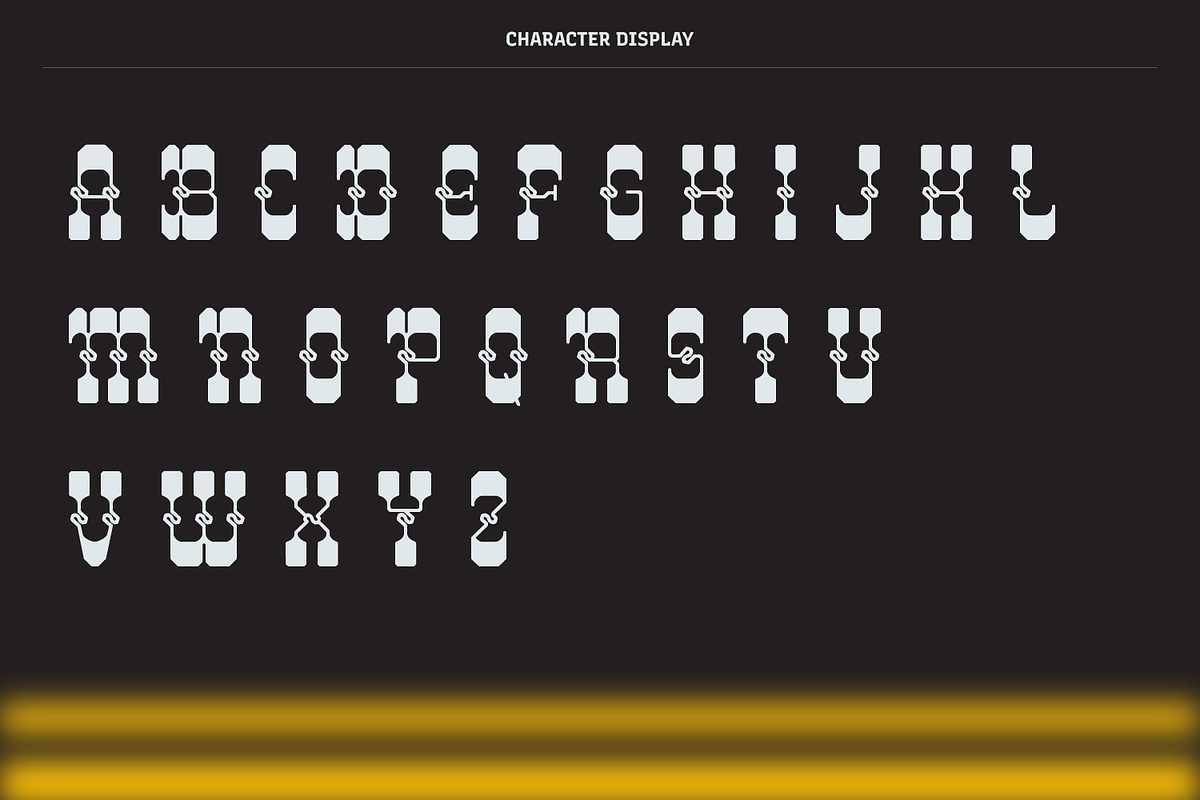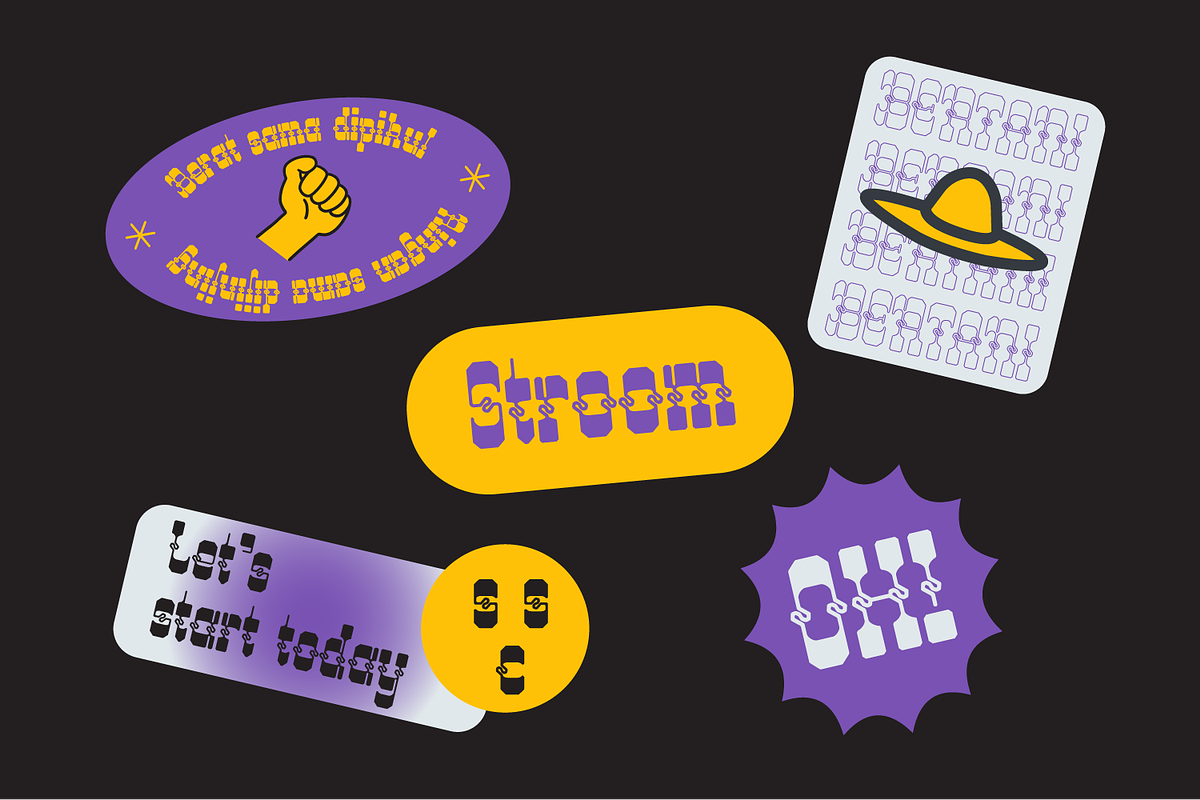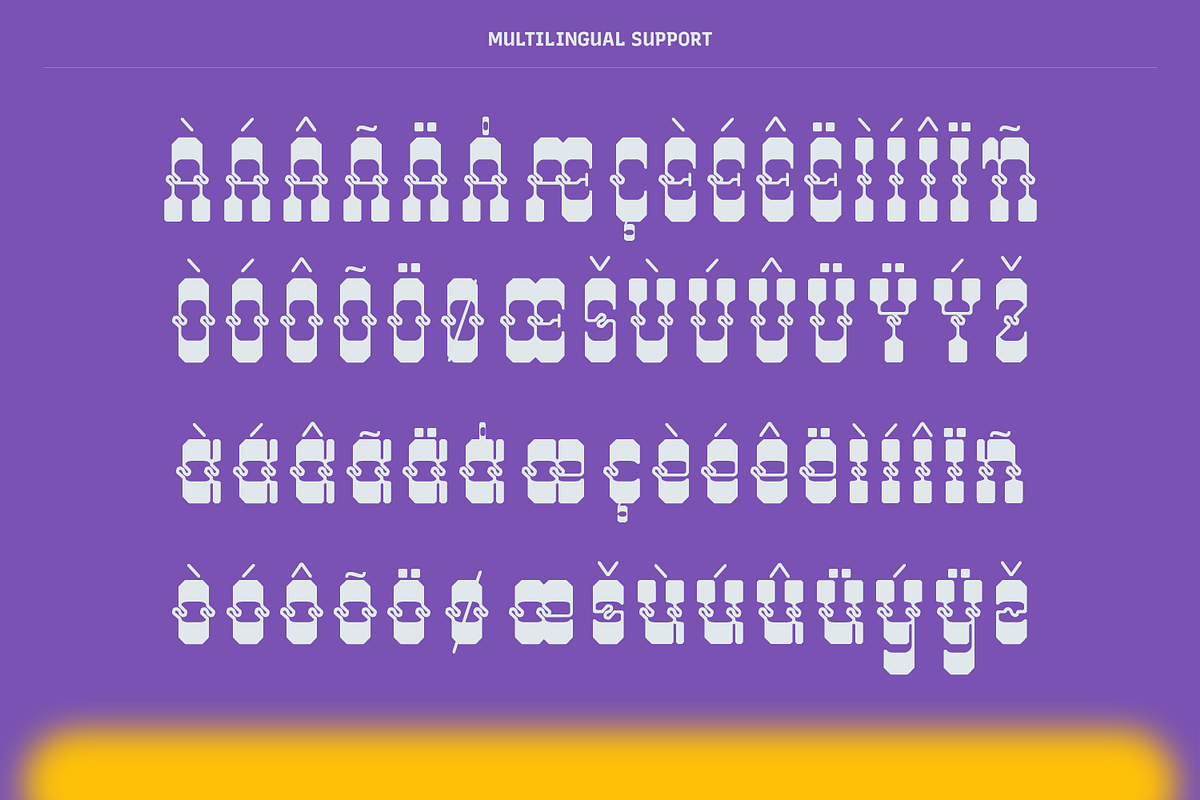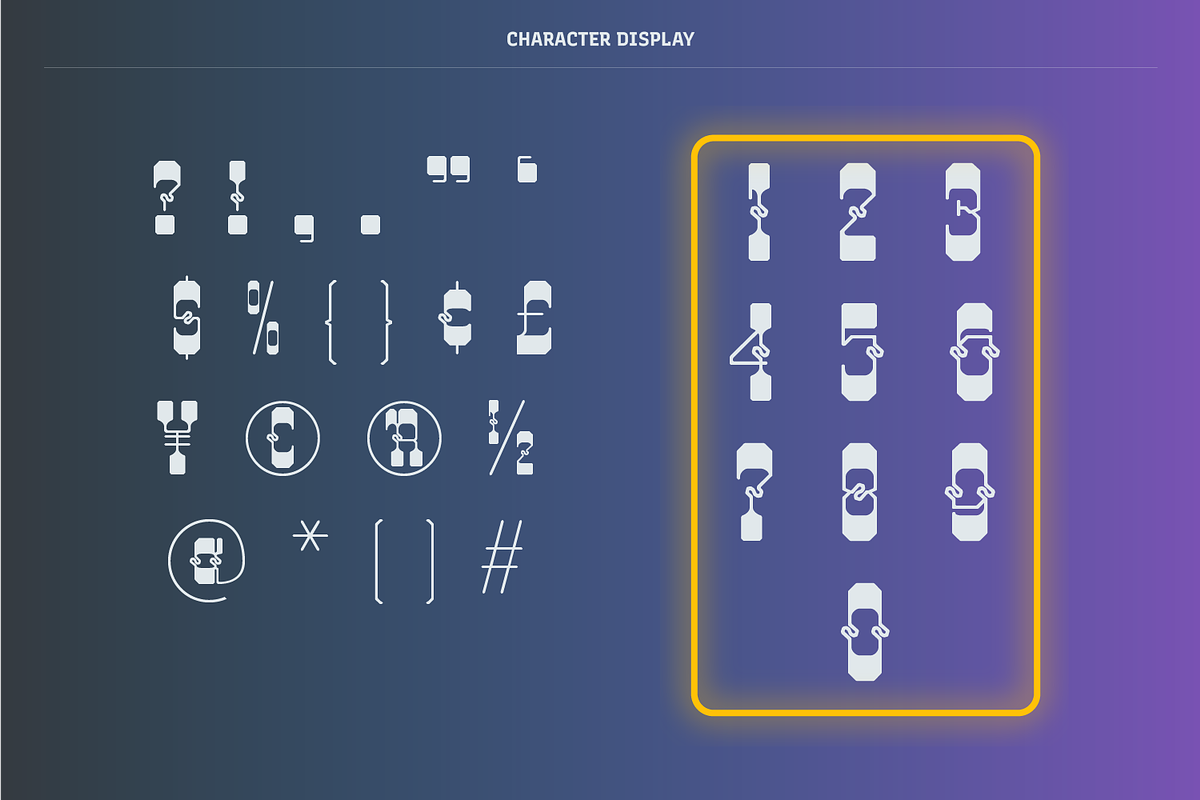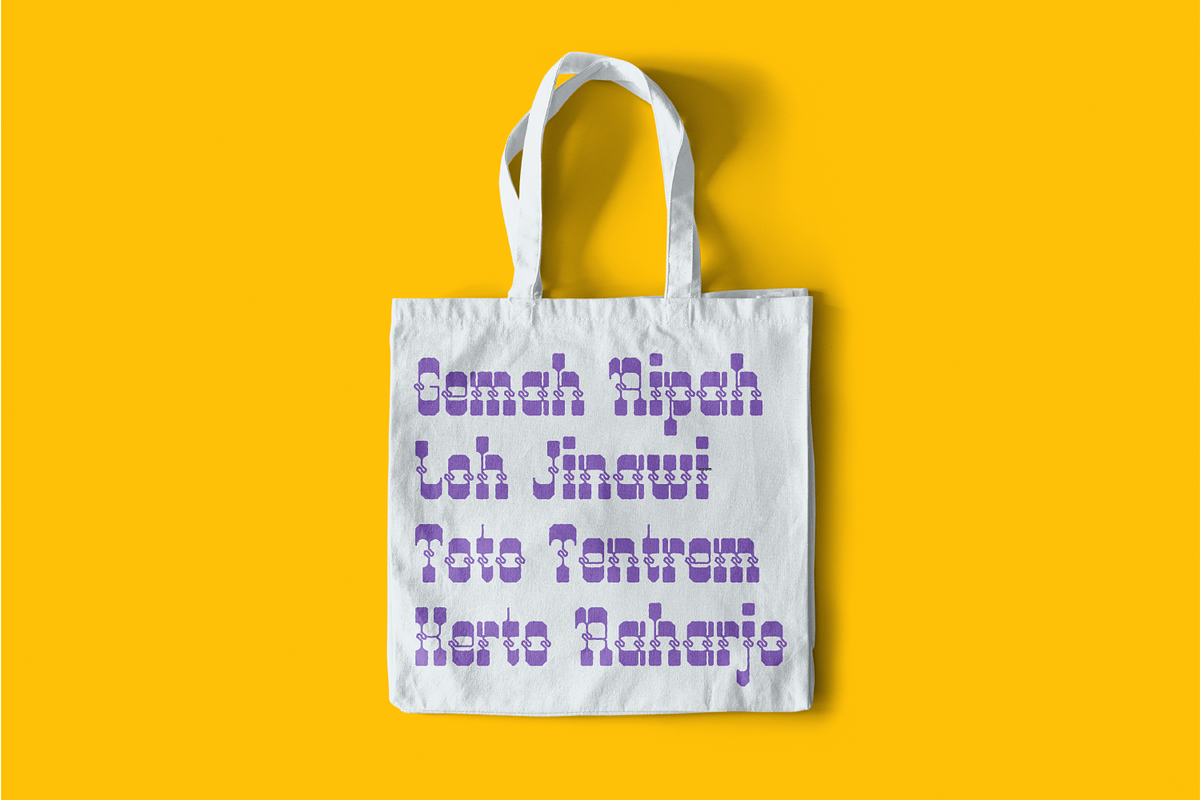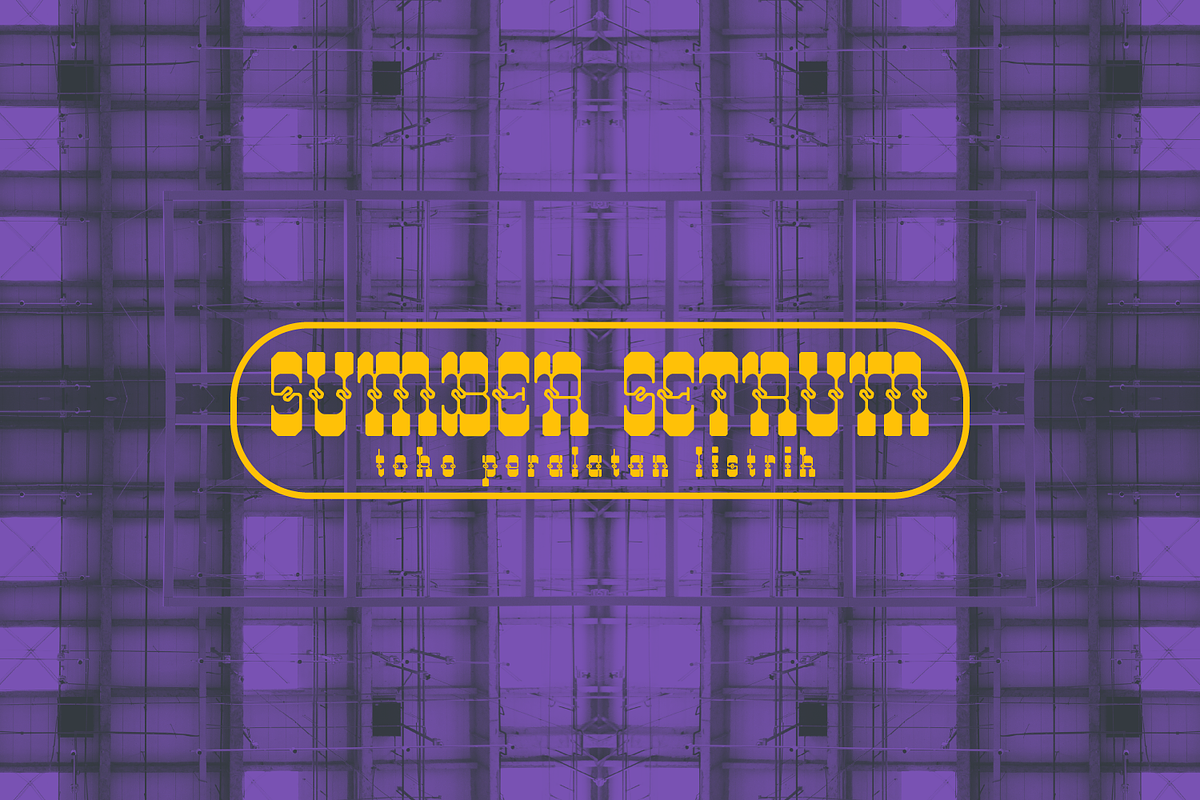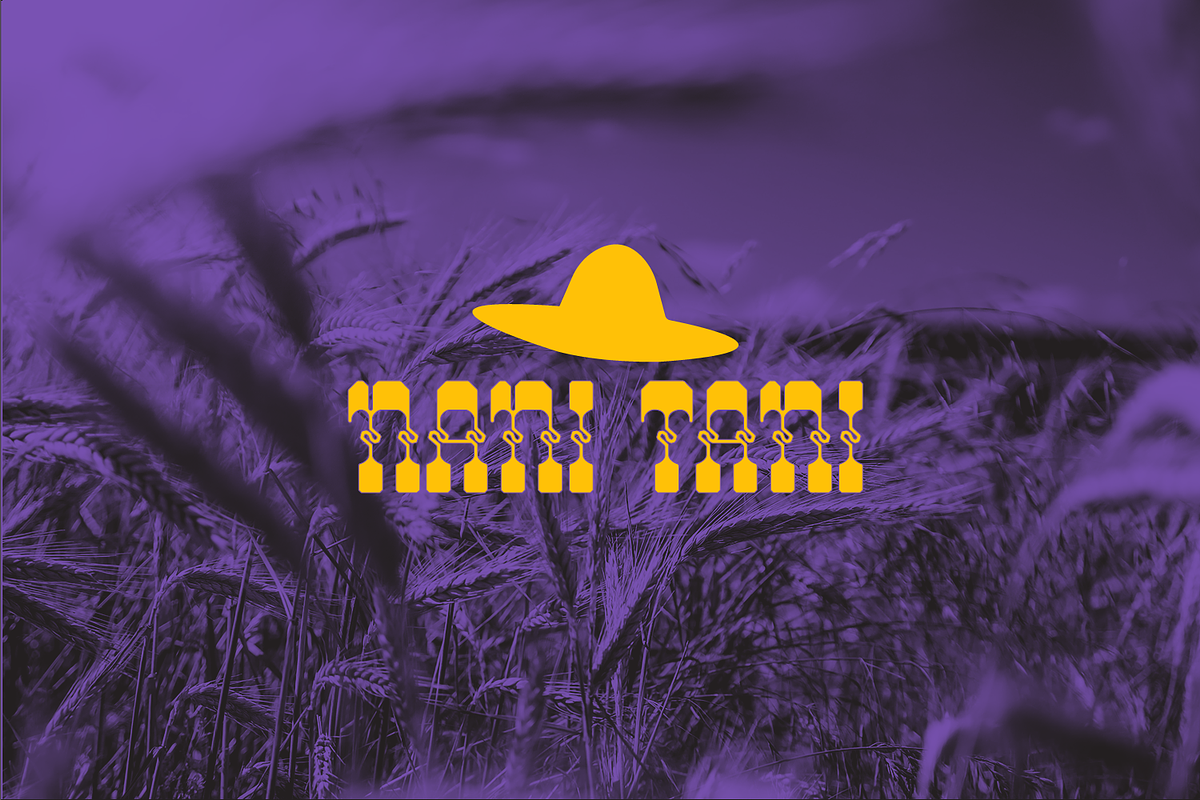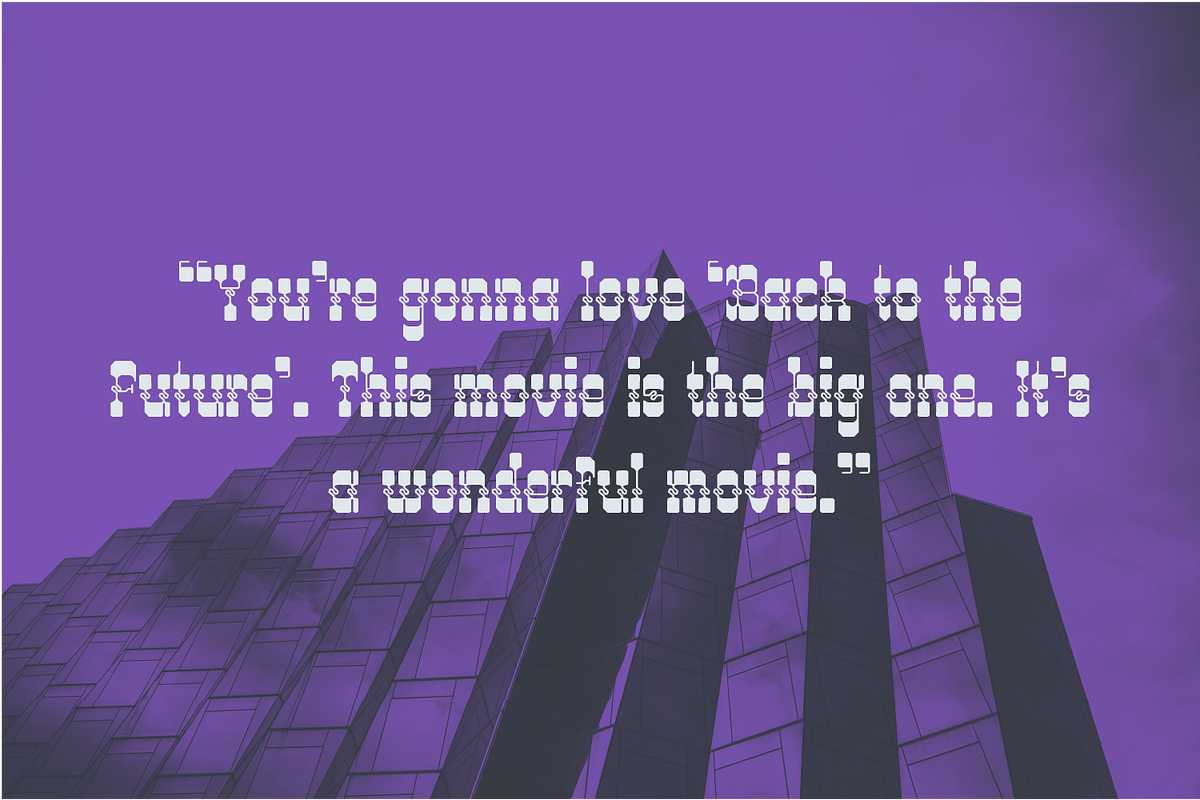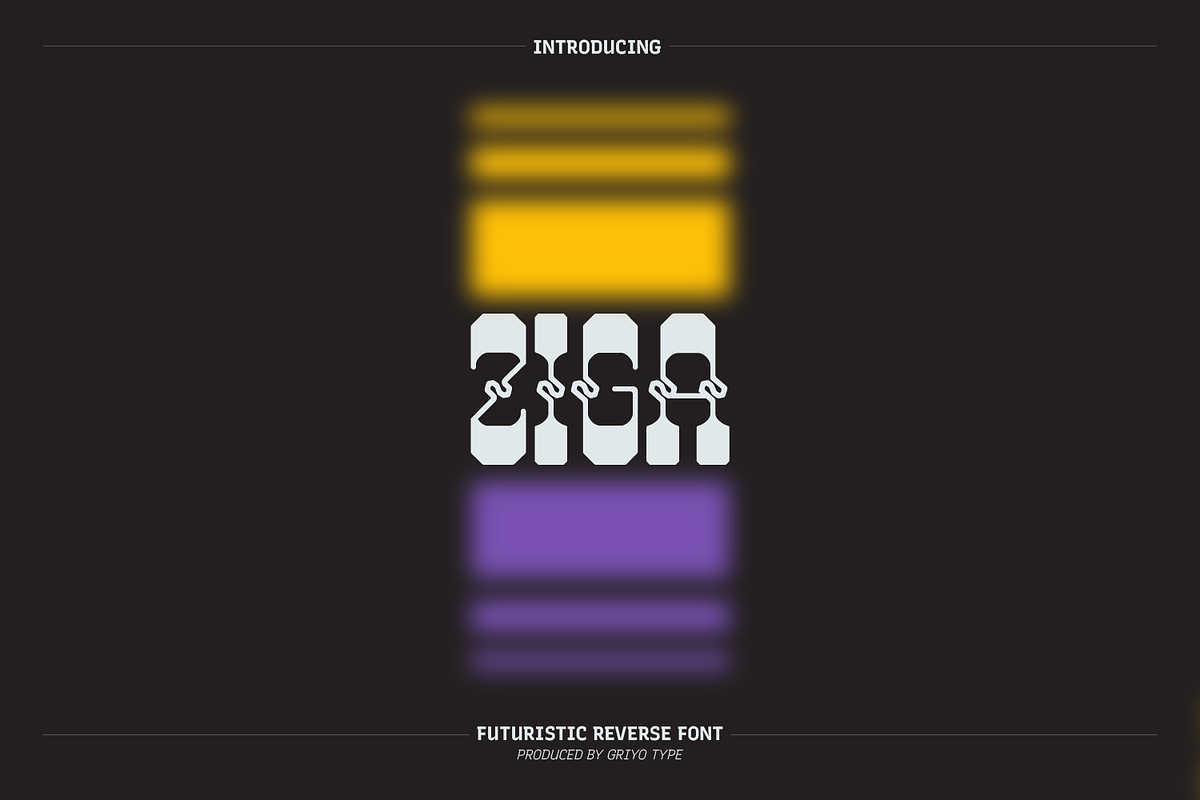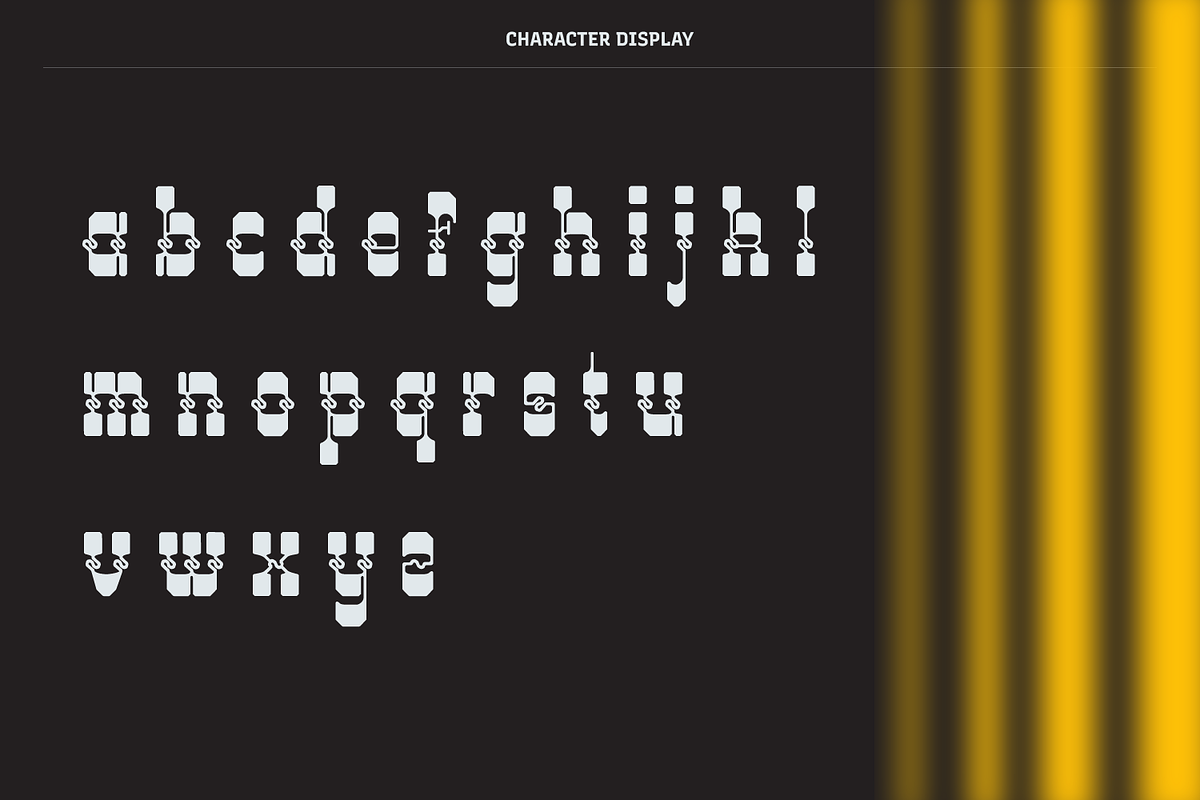
Ziga - Futuristic Display Typeface
Introducting Ziga, a slab futuristic reverse font with a unique character! Ziga perfect for futuristic design style.